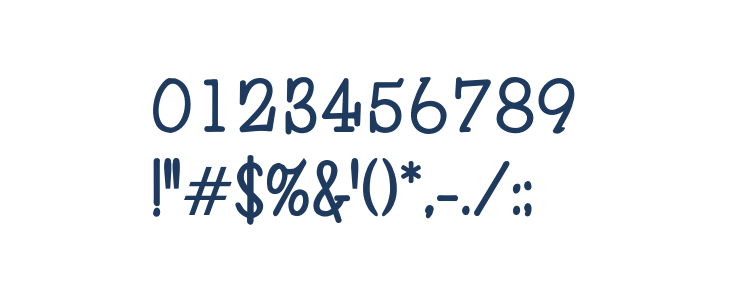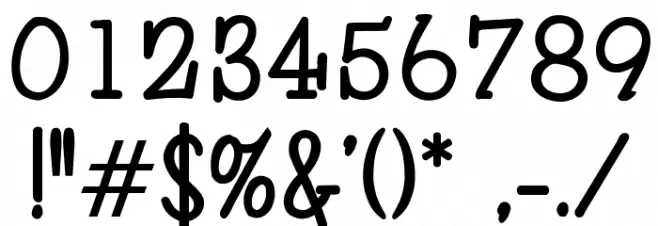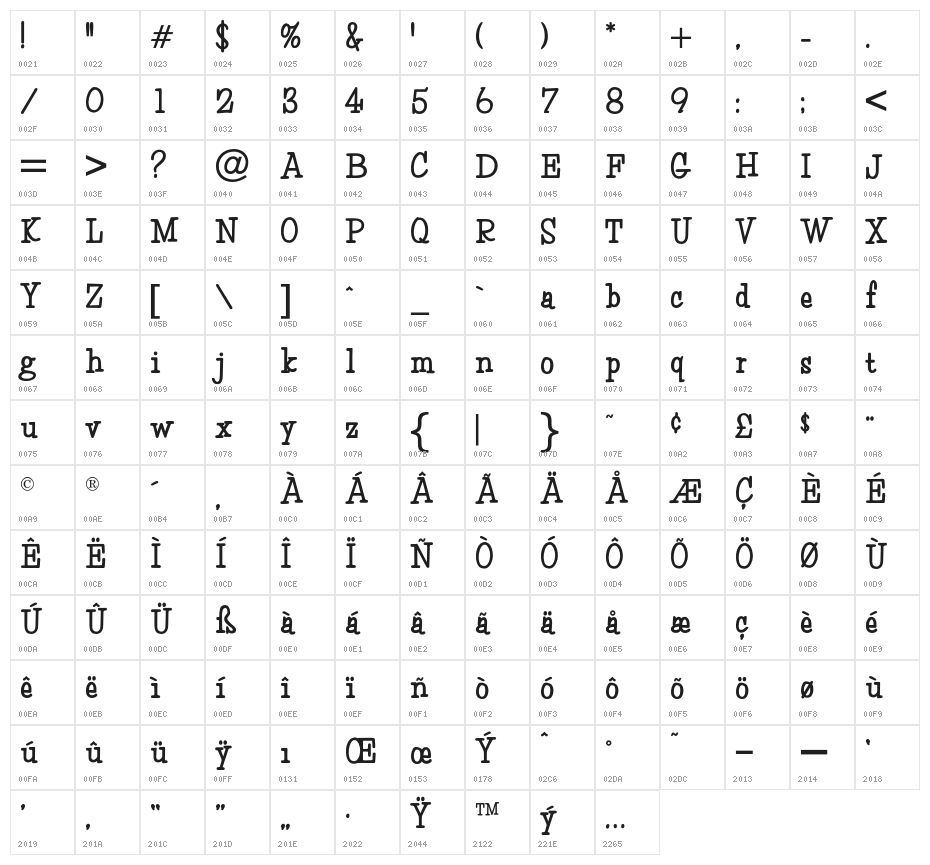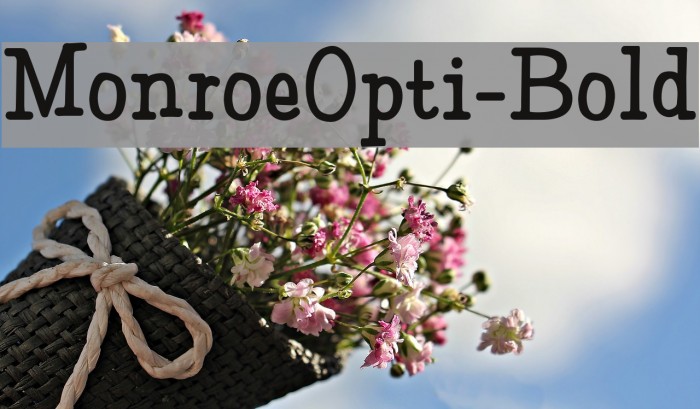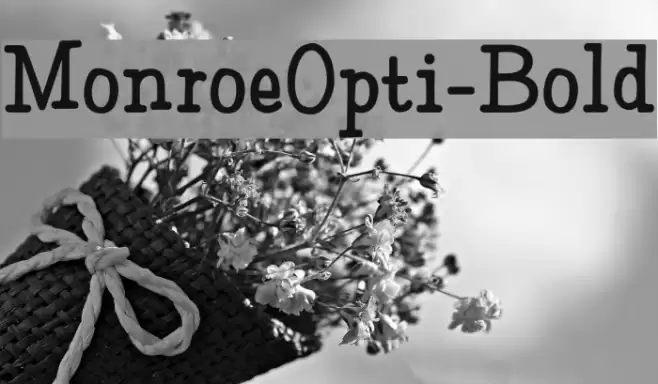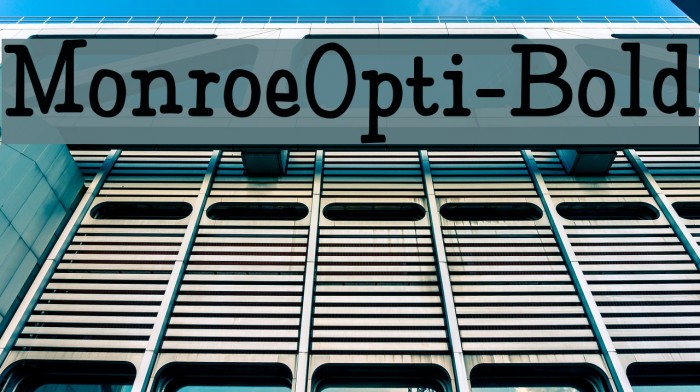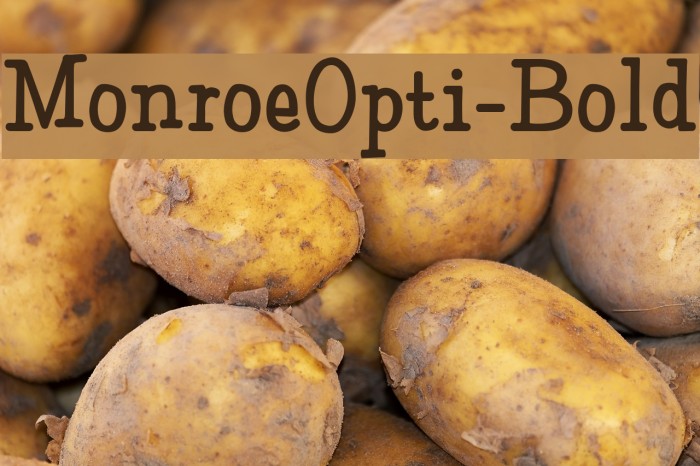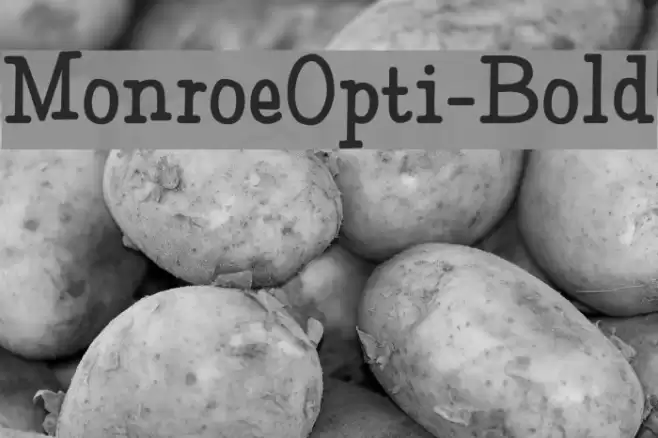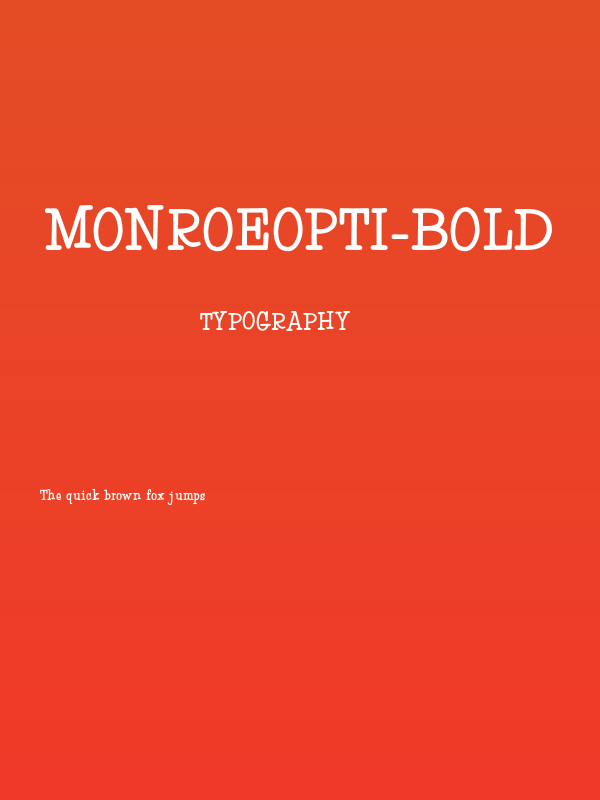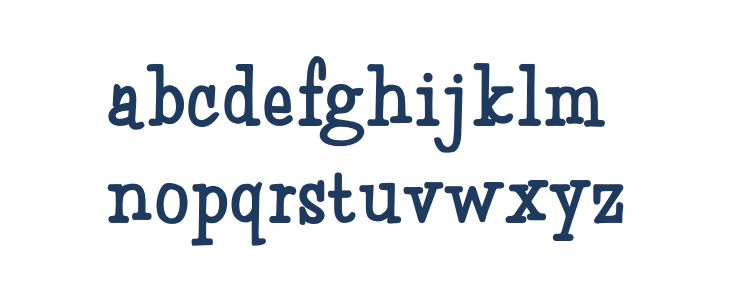
MonroeOpti-Bold Font
MonroeOpti-Bold Description
This font features a bold and robust design with a distinct slab serif style. The characters are well-defined with thick strokes and rounded edges, giving it a strong and impactful appearance. The uppercase letters are uniform and structured, while the lowercase letters maintain a consistent flow with slightly exaggerated curves. The numerals are clear and easily distinguishable, complementing the overall bold aesthetic. Special characters are crafted with the same attention to detail, ensuring versatility in various design contexts. The font's boldness and clarity make it suitable for attention-grabbing headlines and impactful statements.